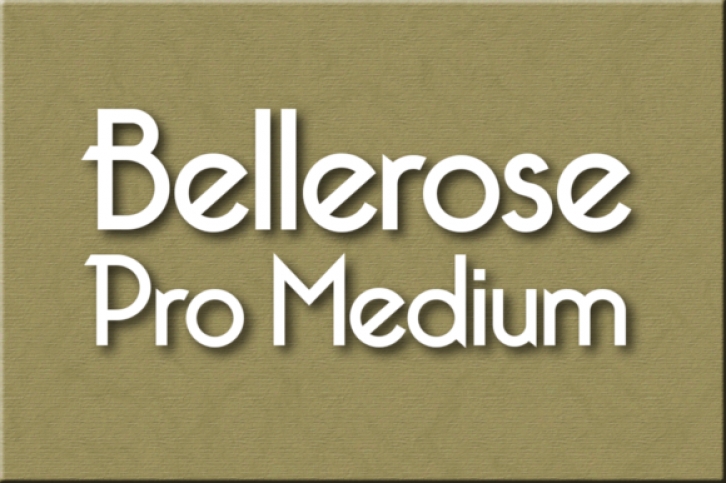
Bellerose is a simple, bold and imposing display font. It can be used for various purposes such as logos, headings, t-shirts, letterhead, signage, labels, news, posters, badges and so much more.